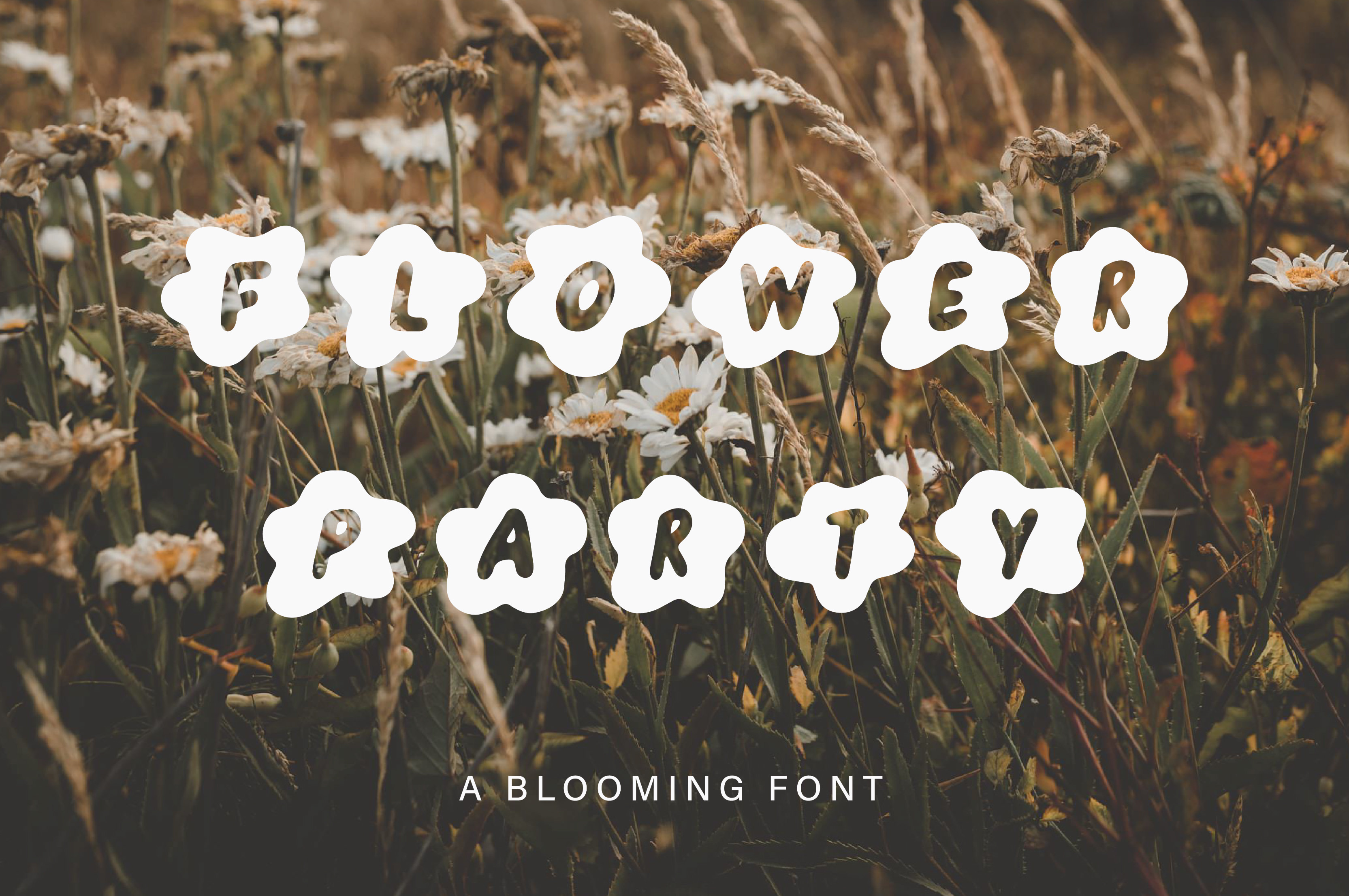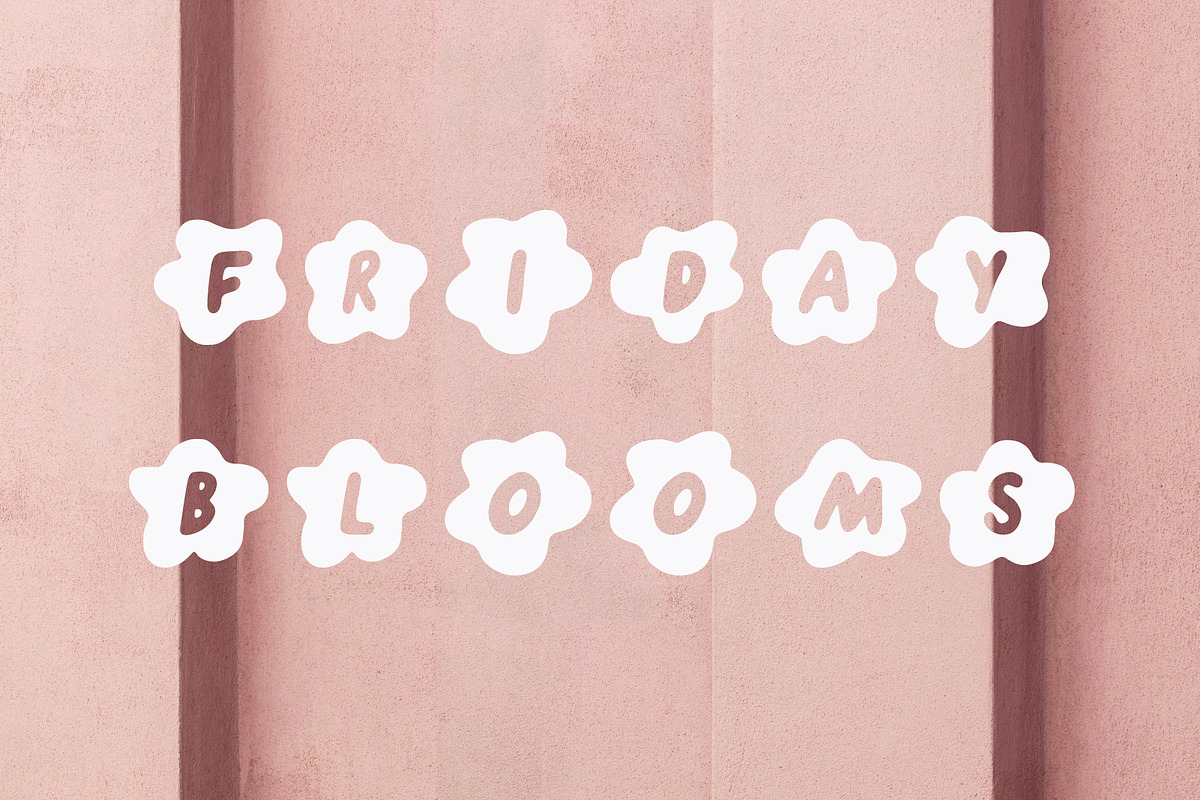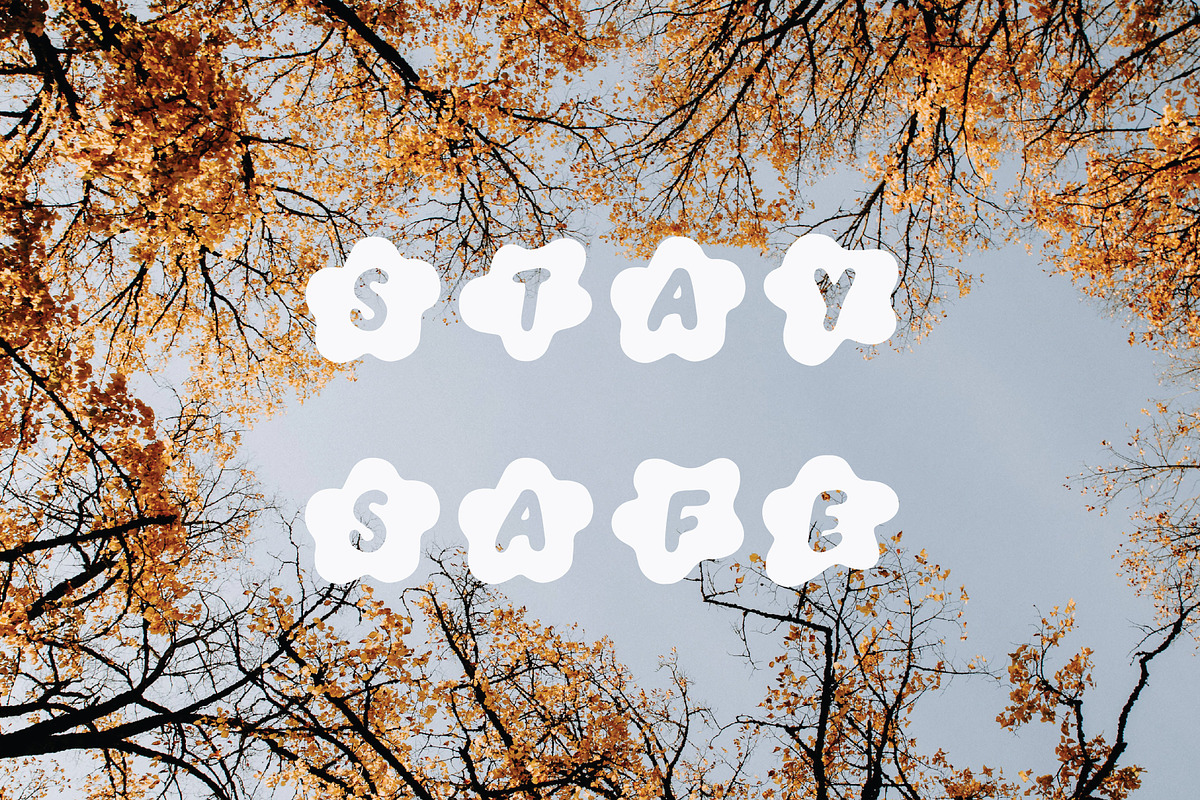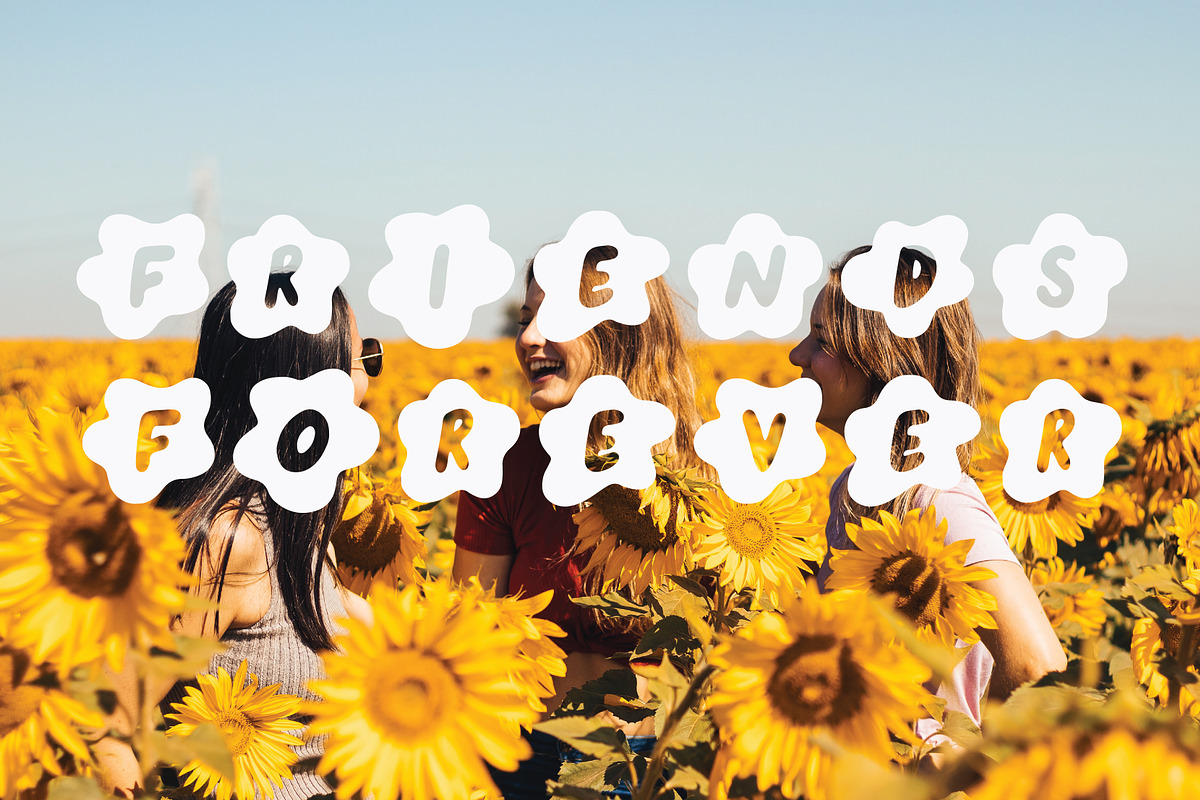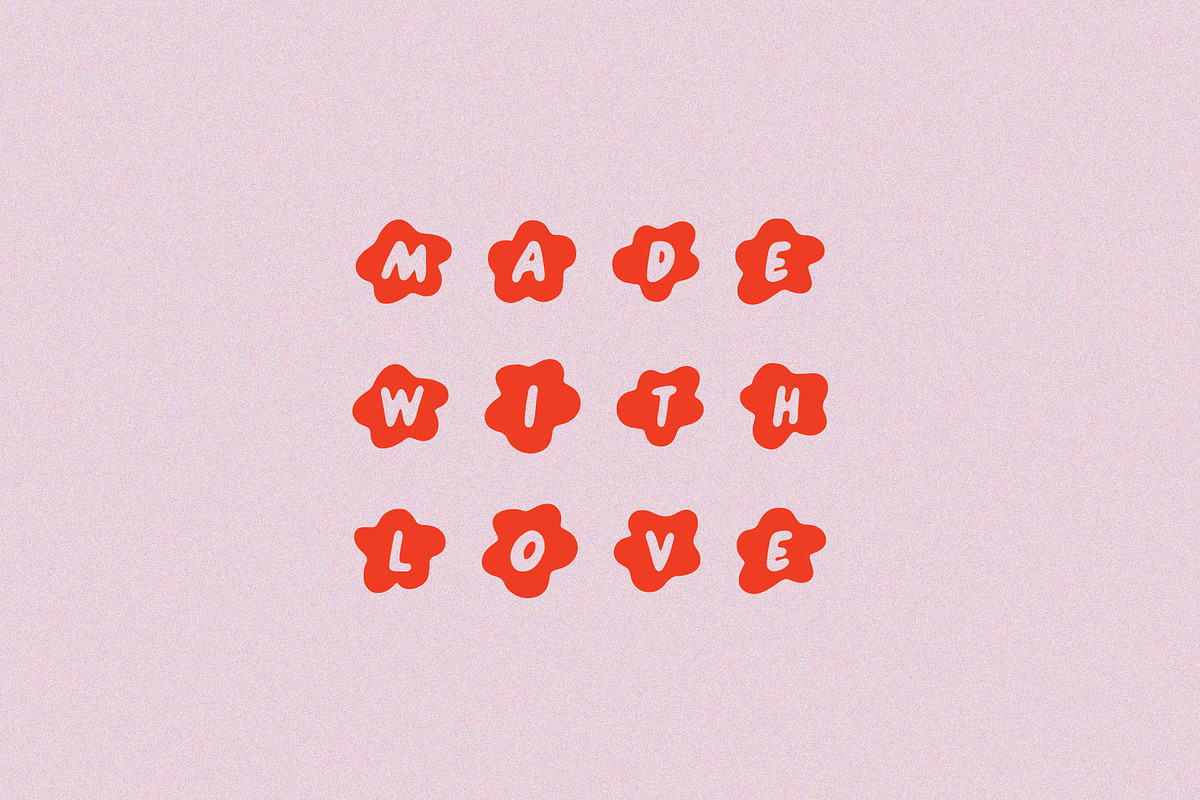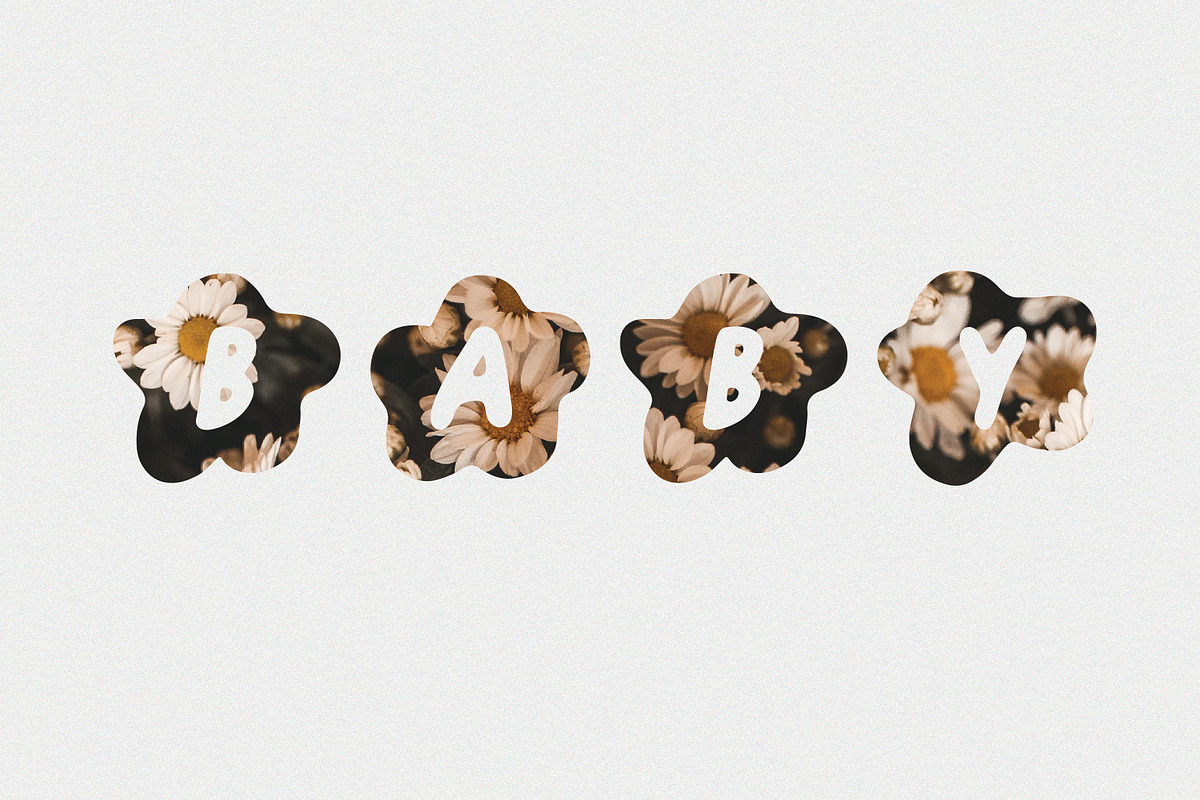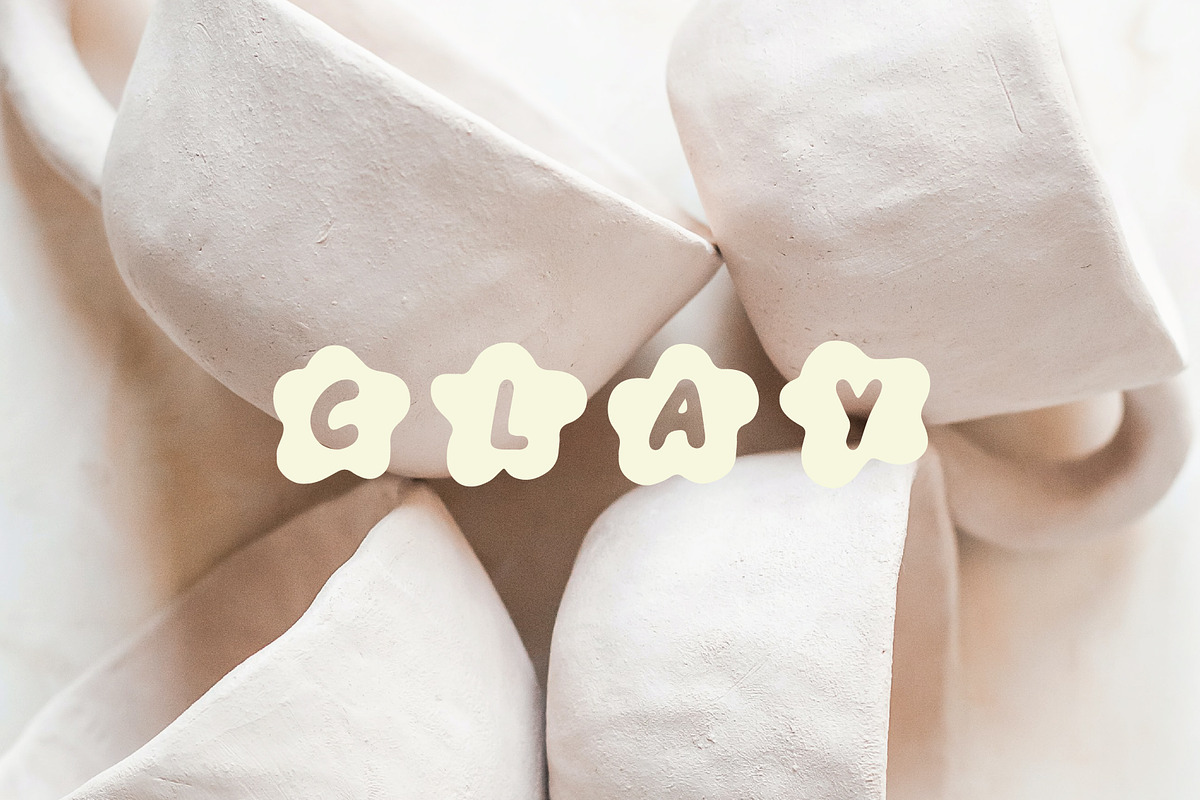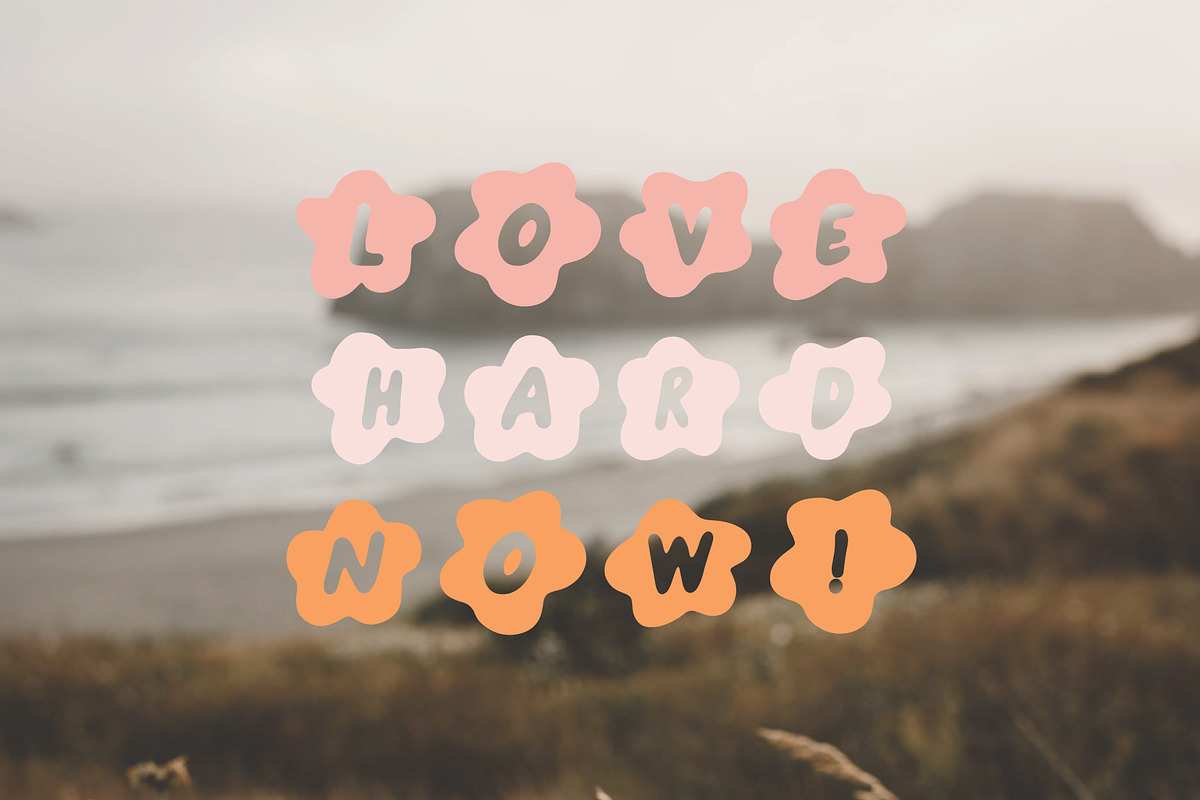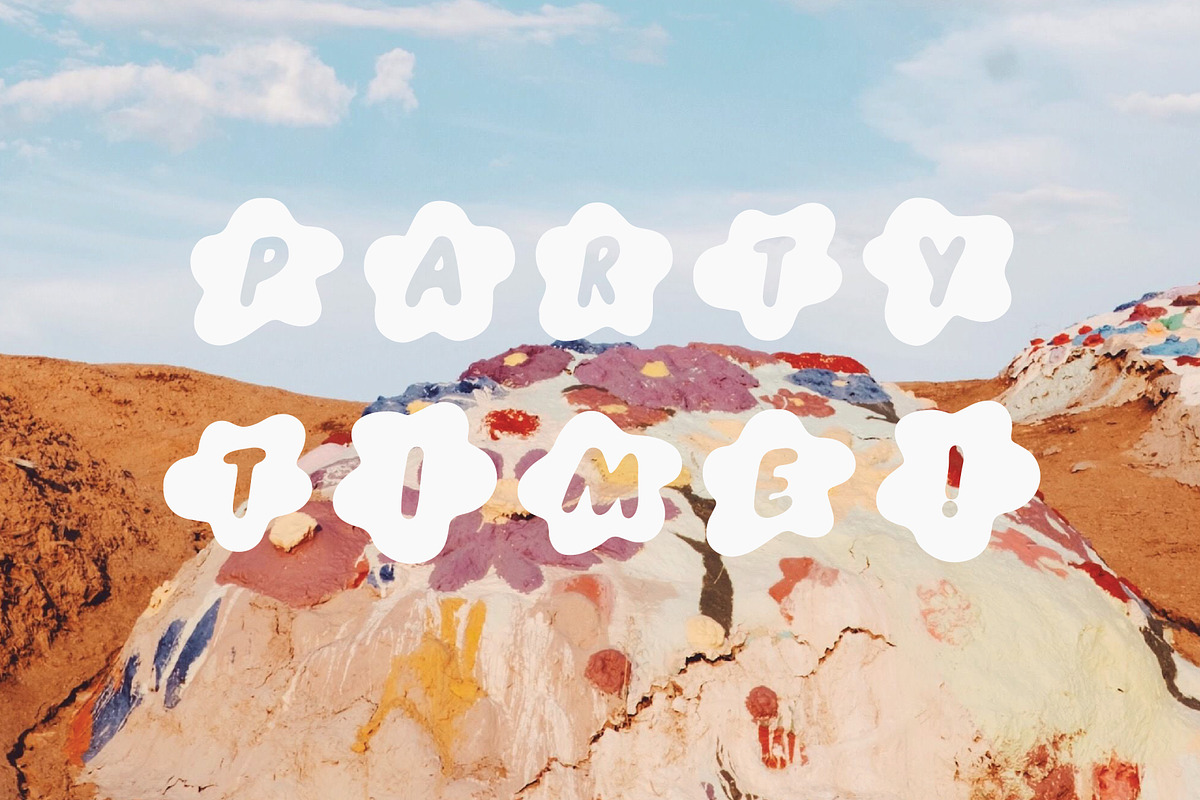
FLOWER PARTY | groovy flower font
FLOWER PARTY | a fresh groovy 70s handwritten flower font
⋒ perfect for ⋒
- handmade products
- groovy brands
- retro brands
- fun flower logos
- 70s vibe brands
- commercial on-trend brands
- brands with a young demographic